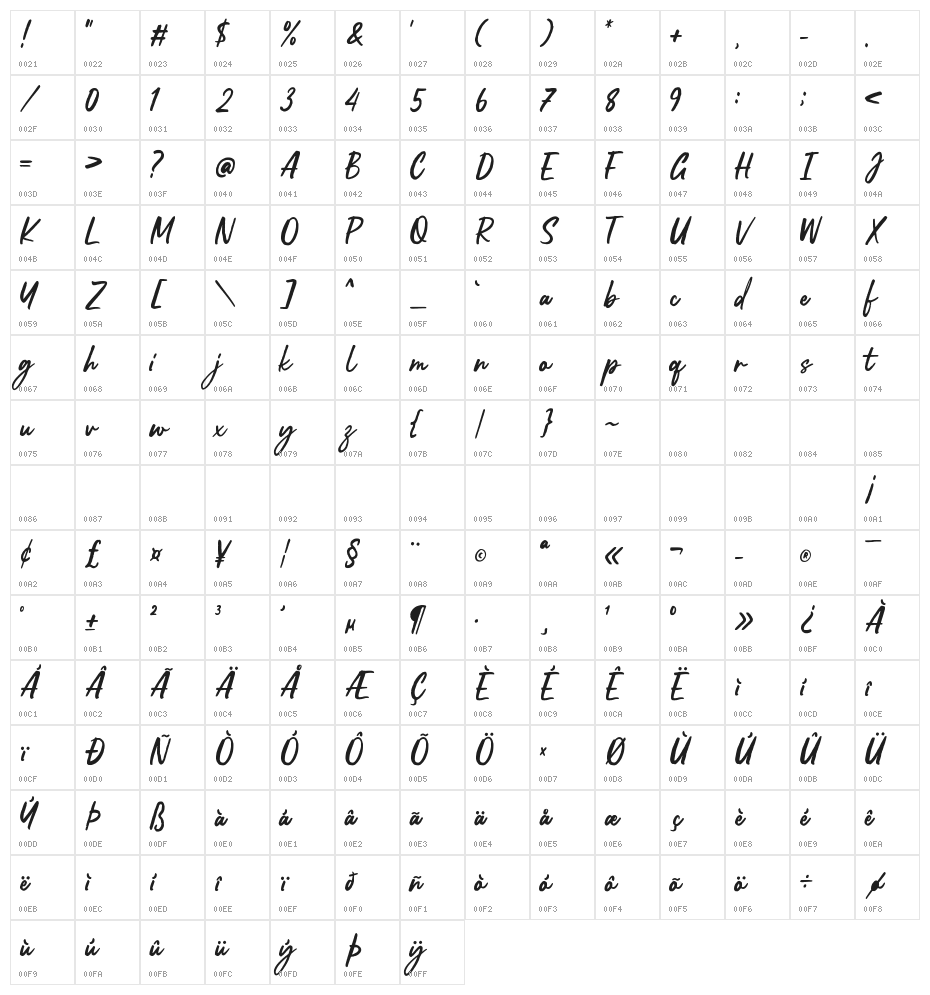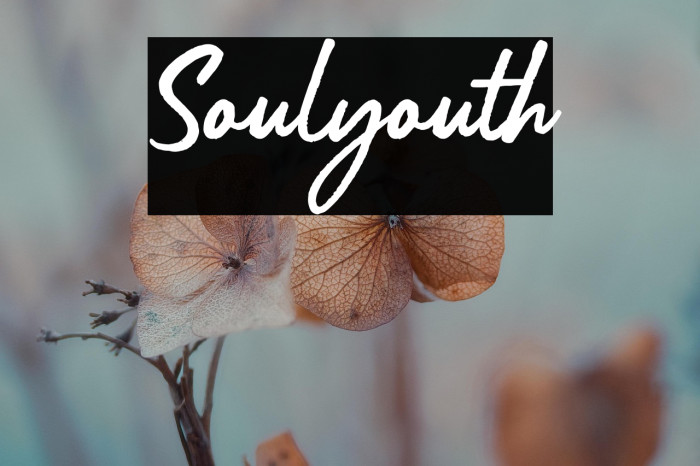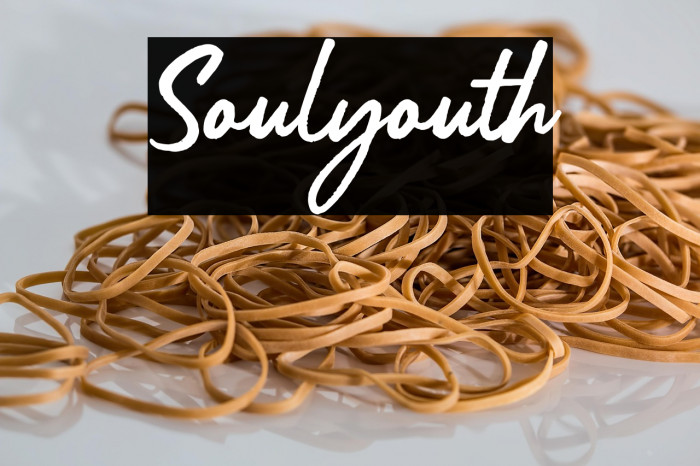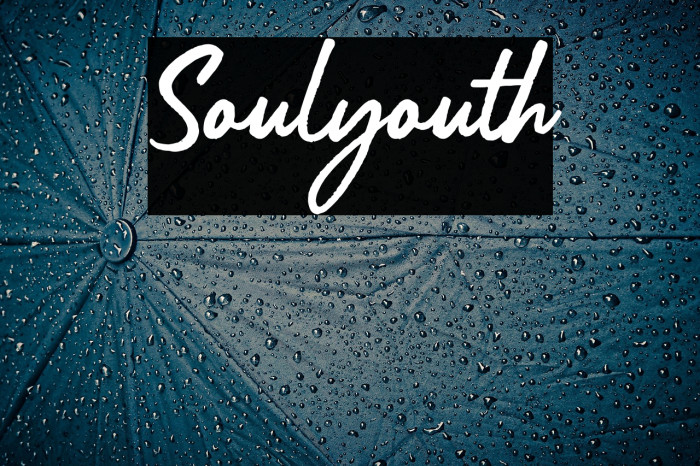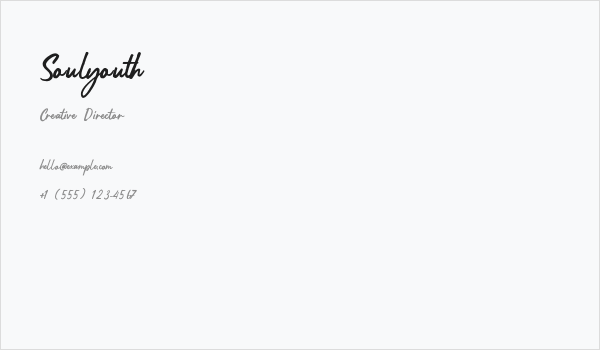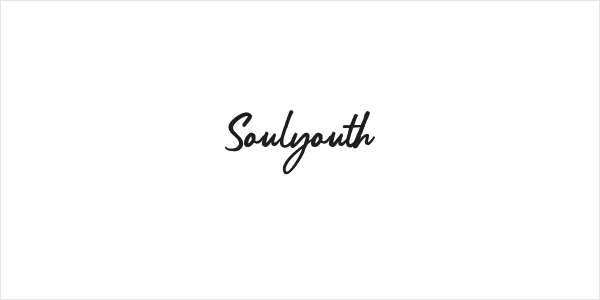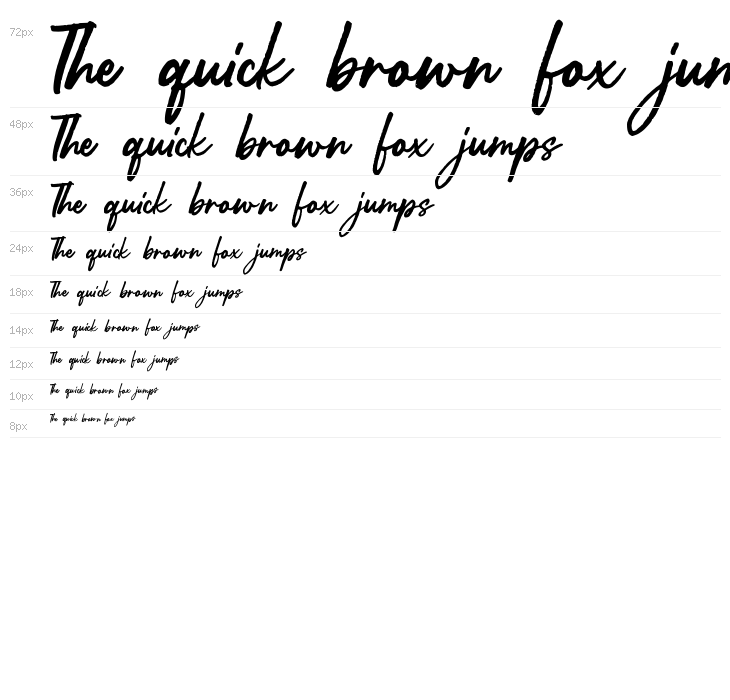
Soulyouth Font
Soulyouth Description
This font features a bold, expressive script style that mimics the fluidity and spontaneity of handwritten text. The uppercase letters are bold and slightly slanted, giving a sense of movement and energy. The lowercase letters maintain a consistent flow, with some characters connecting to each other, enhancing the handwritten feel. The numbers and special characters are designed to match the overall style, with a playful yet sophisticated appearance. This font is ideal for projects that require a personal touch, such as invitations, greeting cards, or branding materials.